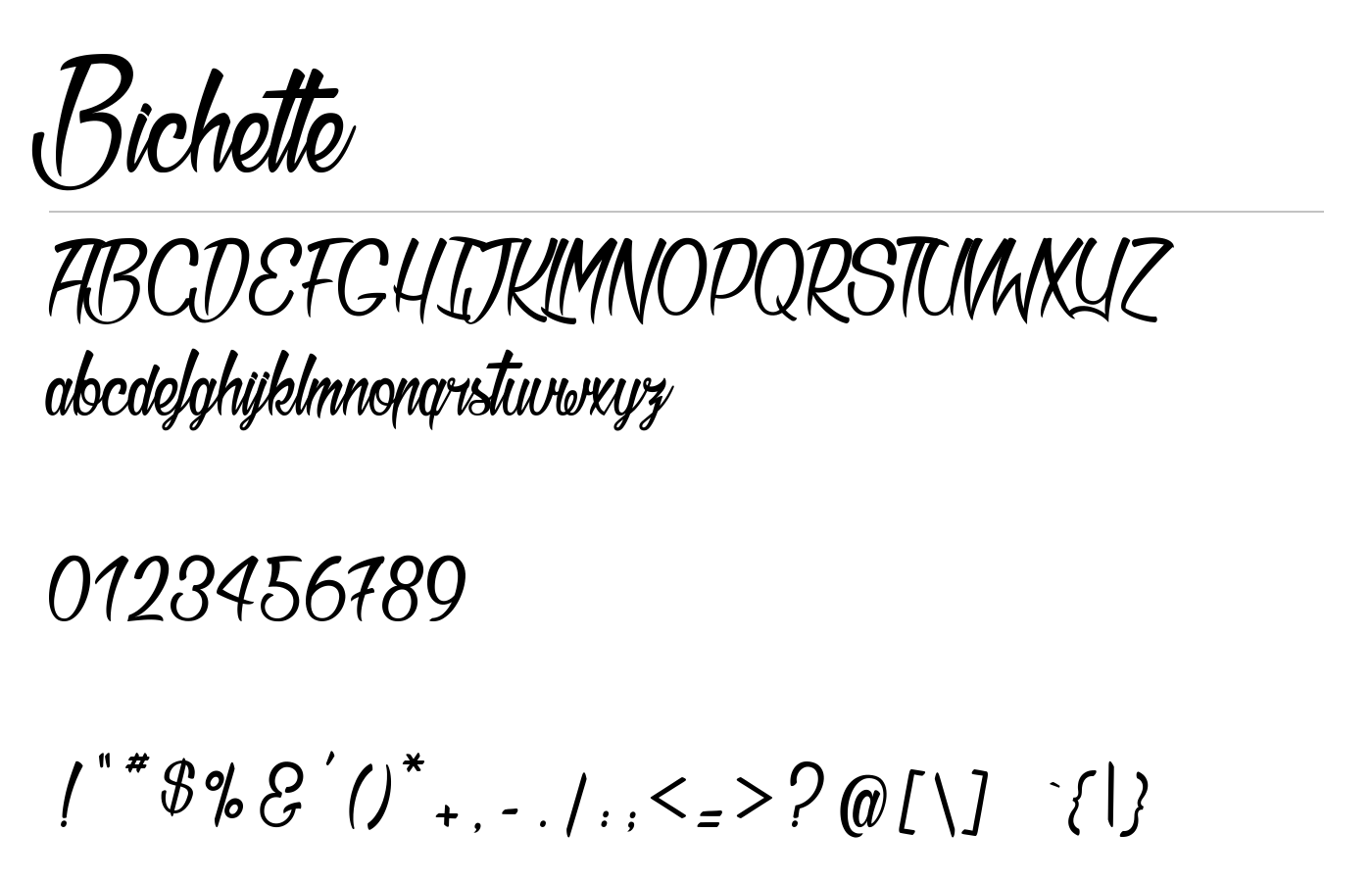
Bichette is a stylish script font that combines a lively, handwritten feel with elegant, flowing strokes. Its slender, slightly condensed letterforms and dynamic rhythm make it perfect for fashion branding, invitations, and creative headlines where a personal yet sophisticated touch is desired. This font’s smooth curves and playful character add charm and personality, enhancing designs that seek a fresh, graceful look.
Bichette Font
About Bichette Font